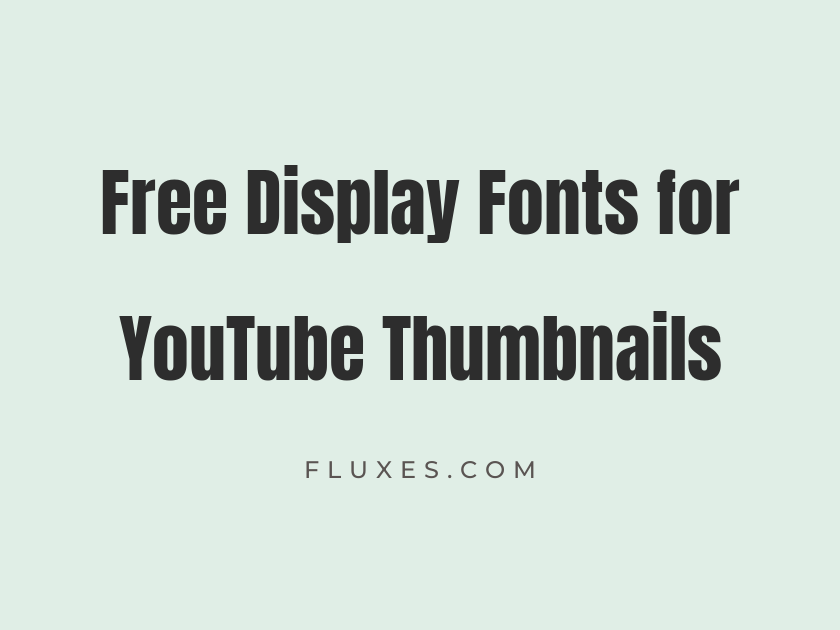
70 Best Free Display Fonts for YouTube Thumbnails
A thumbnail has about half a second to stop a scroll, and the type carries most of that weight. Bold free display fonts from Google Fonts have become the backbone of YouTube branding because they hold up at tiny sizes, survive being crammed next to a face and an arrow, and still read clearly on a phone screen. Whether the channel is gaming, vlogging, tech reviews, or true crime, the right typeface does a huge share of the persuading before a viewer ever presses play.
This roundup leans toward chunky, high-contrast, and condensed letterforms built for maximum visibility, alongside a handful of playful and stylized options for channels that want more personality than a plain bold sans can offer. Every option here is free to download and use commercially, so testing a dozen against your own thumbnail template costs nothing but time.
Anton is close to the default answer for thumbnail type, and for good reason. Its condensed, ultra-bold strokes pack maximum shout into minimum horizontal space, which matters when a headline has to share the frame with a face and a logo bug.
A staple of the genre, Bebas Neue trades Anton’s density for taller, narrower capitals with a cleaner, more architectural feel. It only ships in caps, which is rarely a problem on a thumbnail where all-caps is the house style anyway.
Where Anton and Bebas Neue lean condensed, Archivo Black keeps a more neutral, grotesque width, so it reads as confident rather than shouty. It’s a dependable pick when a channel wants bold without veering into aggressive.
The heavy slab serifs here give headlines a stamped, poster-like weight that stands out from the sea of sans-serif thumbnails. It works especially well for finance, DIY, and review content that wants to feel authoritative rather than flashy.
Bungee borrows its energy from urban signage, all blocky and confident with a slight retro-poster attitude. It suits gaming and street culture channels that want type as loud as the thumbnail’s color palette.
This variant adds a hard drop shadow baked right into the letterforms, giving instant dimension without extra layer effects in your editor. Use it sparingly as an accent word rather than a full sentence, since the shadow gets busy at very small sizes.
The inline treatment hollows out each letter, creating a sticker-like outline effect that pairs nicely with a bold solid headline behind it. It reads best in short bursts, like a single emphasized word layered over the main title.
Bungee Outline
A lighter-touch sibling to Bungee Inline, this one keeps just the outline stroke, which makes it useful when a thumbnail already has enough solid color and needs a lighter accent shape instead.
Bungee Hairline
Delicate and linear where the rest of the Bungee family is heavy, this is the one exception worth using only at large display sizes since fine hairlines vanish in a small thumbnail preview. Save it for a title card inside the video rather than the thumbnail itself.
Bungee Spice
Built-in two-tone coloring gives this face a candy, layered look straight out of the box, which can save time compared to hand-coloring a duotone effect. It carries a fun, youthful mood suited to lifestyle and travel content.
Rounded, cartoonish, and endlessly cheerful, this is a favorite for reaction videos, kids’ content, and anything that wants to feel like a comic-book shout. It has become something of a meme-culture staple online, which cuts both ways: instantly recognizable, but also easy to overuse.
Straight out of comic-book lettering, Bangers leans into rough, energetic edges that suit action, gaming, and comedy channels chasing a loud, irreverent tone.
Thick, inflated, and friendly, Titan One has the bubbly weight of a video game logo. It thrives on bright backgrounds where its rounded terminals can really breathe.
A retro-futuristic geometric face with just enough swagger to feel branded rather than generic, Righteous works nicely as a channel wordmark as well as a one-off thumbnail headline.
Soft, rounded, and approachable, Fredoka’s bold weight keeps things friendly without losing punch, which makes it a natural fit for family, kids, and lifestyle channels.
This rounded slab-adjacent face carries warmth alongside its heft, so it reads as inviting rather than aggressive, a good match for food, home, and craft content.
Paytone One
Limit a thumbnail to three or four words wherever possible. Even the best free display font loses its punch once a sentence gets long enough to shrink the type down to fit.
With this many solid, genuinely free options from Google Fonts, there is rarely a reason to reach for a paid display typeface just to make a thumbnail pop. Downloading a handful of these, testing them against a real thumbnail template, and settling on two or three as a consistent channel style is usually all it takes to build a recognizable, clickable look.